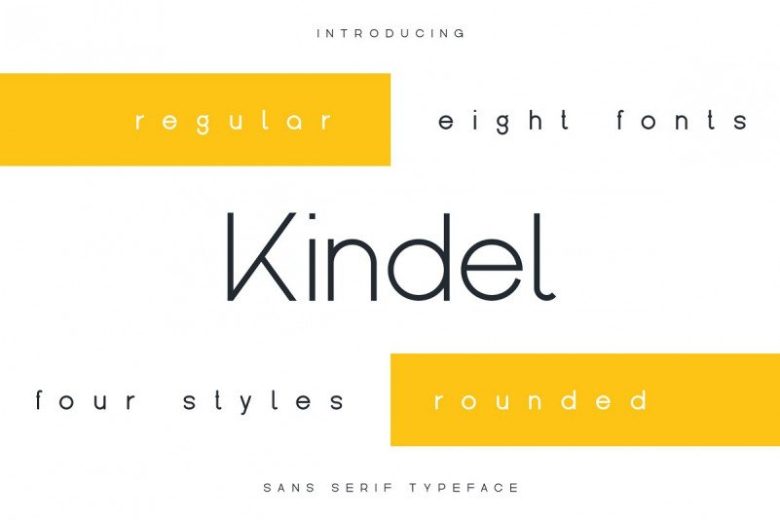
Kindel Sans Serif Font
This is a brand new beautiful sans serif font family with wide choice of weights that looks stunning in every context. Kindel Font was designed and shared by VPcreativeshop. It’s modern, clean typeface with total of 8 font styles and multilingual support. It’s a very versatile font that works great in large and small sizes. It’s perfect for branding projects, home-ware designs, product packaging, magazine headers – or simply as a stylish text overlay to any background image.